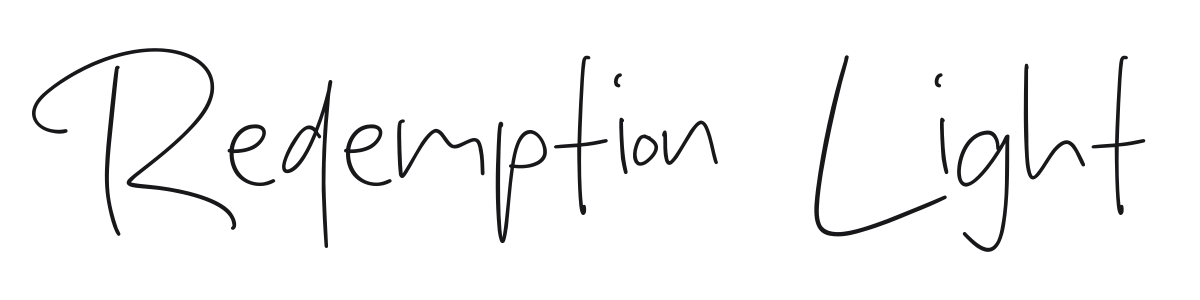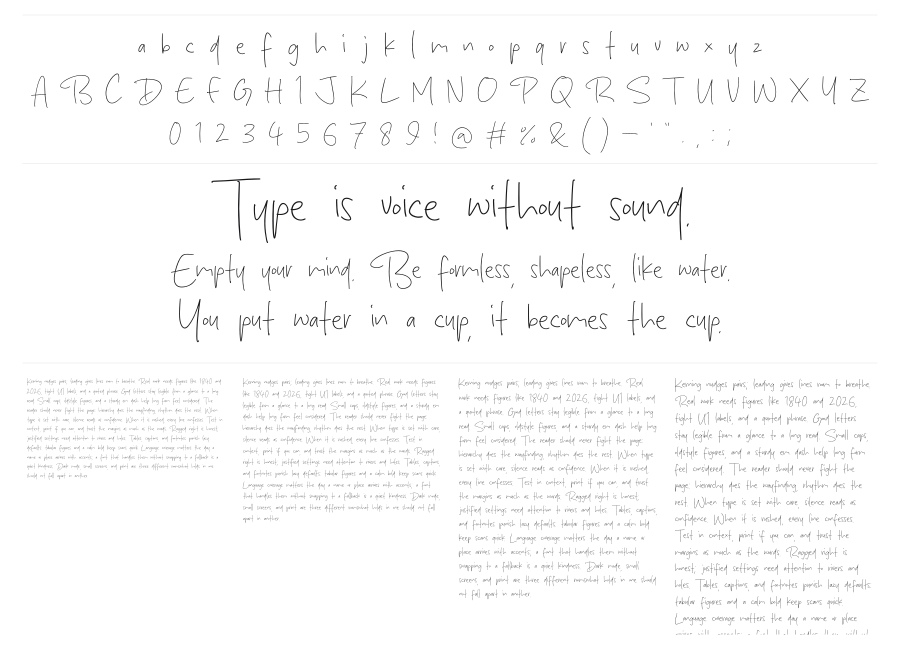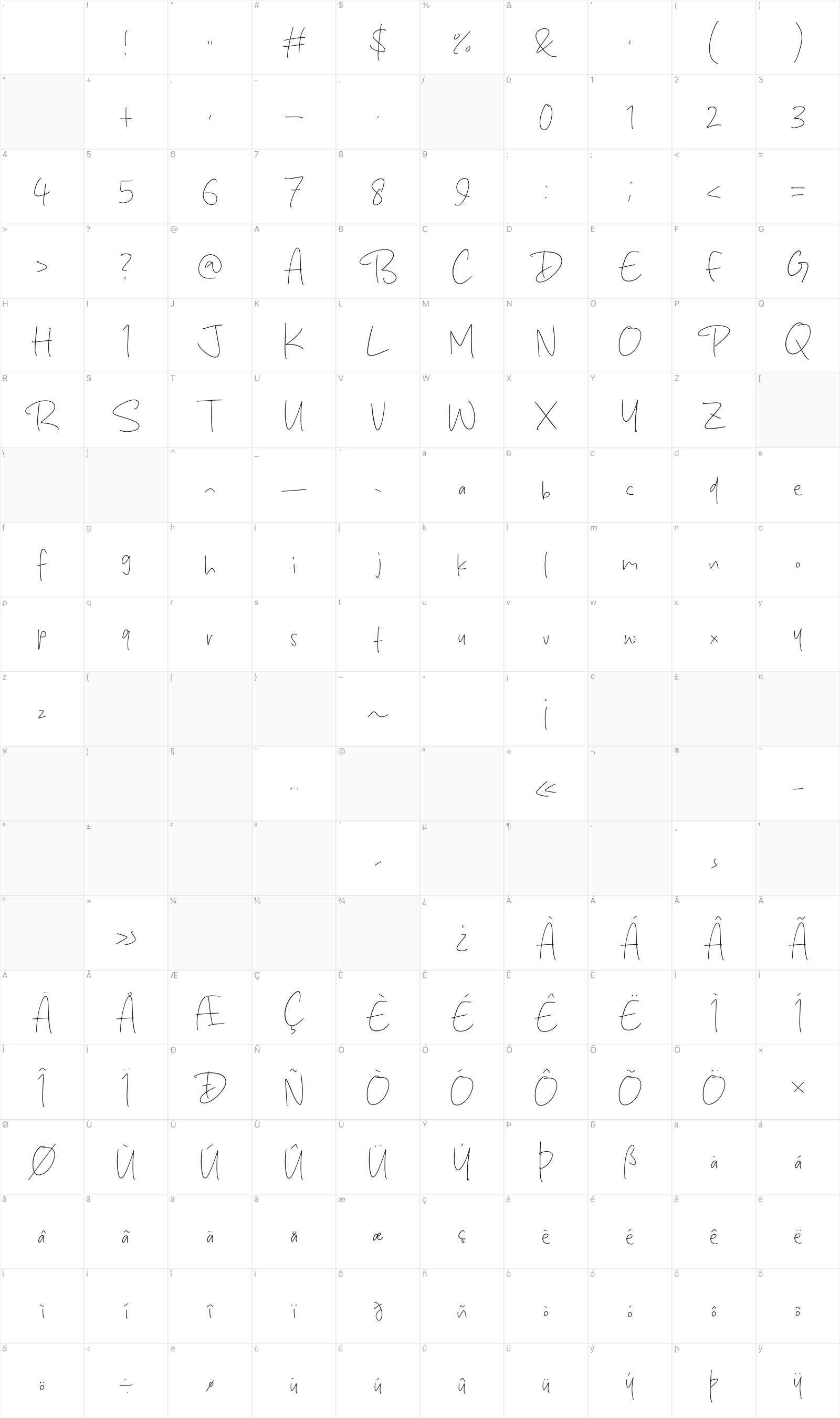
Redemption Light
Redemption Light is a casual handwritten script that captures the relaxed energy of everyday pen-and-paper writing. Its thin, flowing strokes and naturally irregular rhythm give it an unforced, genuine quality that sets it apart from more polished calligraphic scripts. Works well in branding, packaging, and lifestyle contexts where authenticity matters.